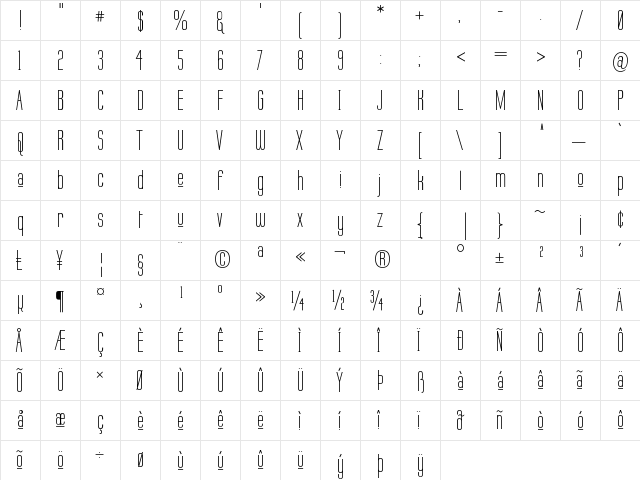
Labtop Upper Regular
Design Context for Labtop Upper Typeface
Labtop Upper is a composed and adaptable typeface that performs quietly and consistently across a wide range of design contexts.